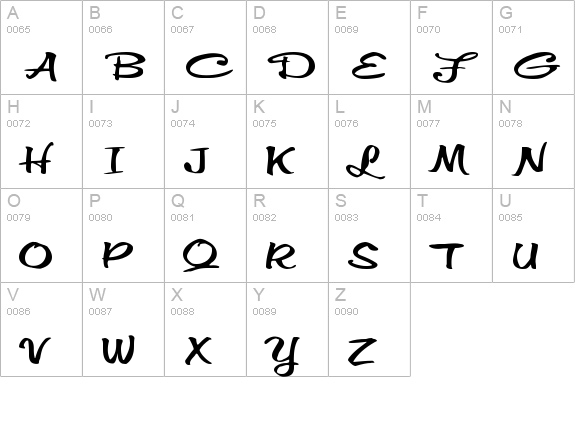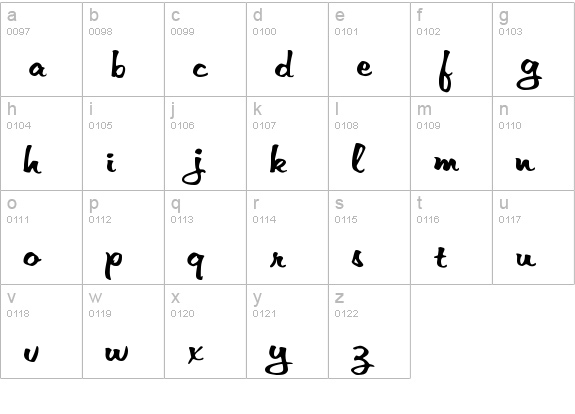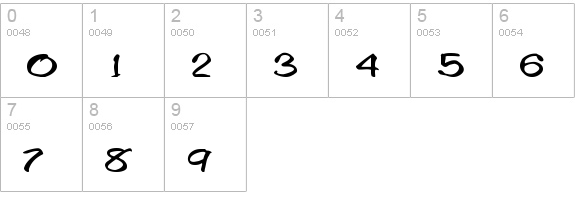
VNIThufap3 Font Details
VNIThufap3 is a stunning font that combines elegance and modernity in a unique way. With its sleek and sophisticated design, this font is perfect for any project that requires a touch of creativity and professionalism. Whether you are designing a logo, creating a website, or working on a branding project, VNIThufap3 will surely make your work stand out. What makes VNIThufap3 even more appealing is the fact that it is free to download. Yes, you read that right! This exceptional font is freely available to download at FontsMarket.com, making it accessible to everyone who wants to add a touch of class to their designs without breaking the bank. The versatility of VNIThufap3 is one of its key strengths. It can be used for both headline and body text, allowing you to create a cohesive and visually appealing design. The well-crafted letterforms, with their clean lines and subtle curves, give this font a timeless appeal that will withstand the test of time. VNIThufap3 is also highly legible, ensuring that your message is conveyed effectively to your audience. Whether you are designing for print or digital media, this font will ensure that your text is easy to read, ensuring a seamless user experience. With its wide range of glyphs and characters, VNIThufap3 offers endless possibilities for customization. Its extensive character set includes both uppercase and lowercase letters, numerals, punctuation marks, and special symbols, allowing you to create unique and eye-catching designs. So, why wait? Download VNIThufap3 for free at FontsMarket.com and take your designs to the next level. Embrace the elegance and versatility of this font and watch as it transforms your projects into works of art.